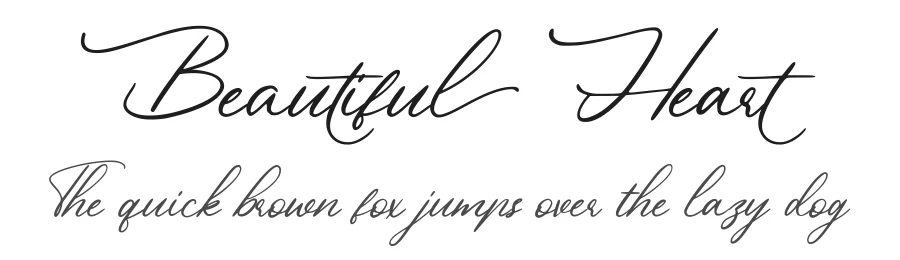
About Bigtime Font
Bigtime Script is the best choice. It is presented with natural, modern and luxury styles. Bold identity
will give your work more value, so you will surely need this font for your branding.
Features include:
Alternates
Swashes
Multilingual Supports
Numerals and Punctuations
Bigtime Specifications
Bigtime Font is a script font that shines as a display or heading face. Pair it with a clean sans-serif or serif font for body text — the contrast creates a clear hierarchy while the two styles stay balanced and easy to read.
Bigtime Font